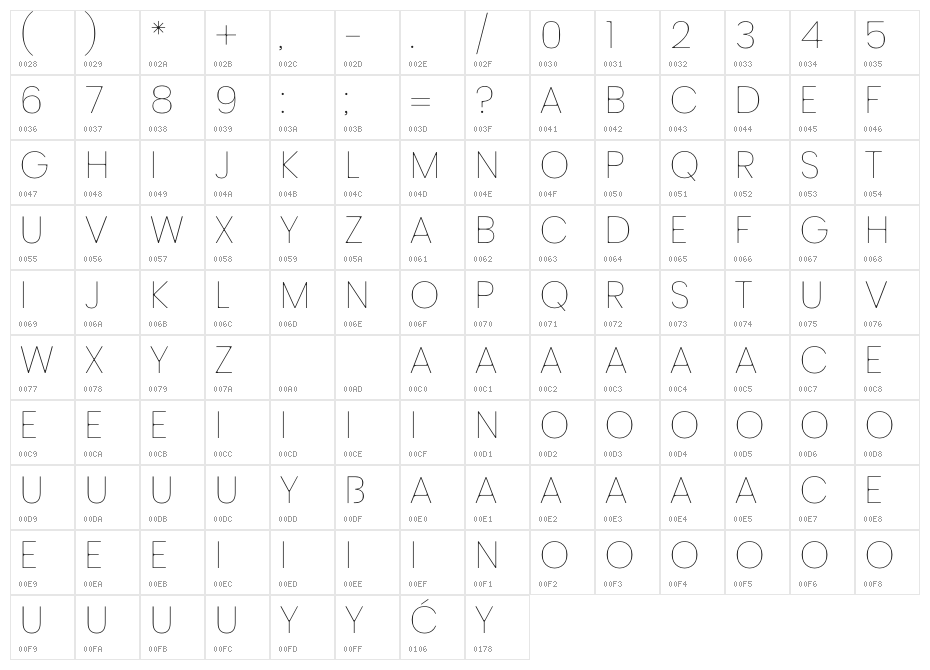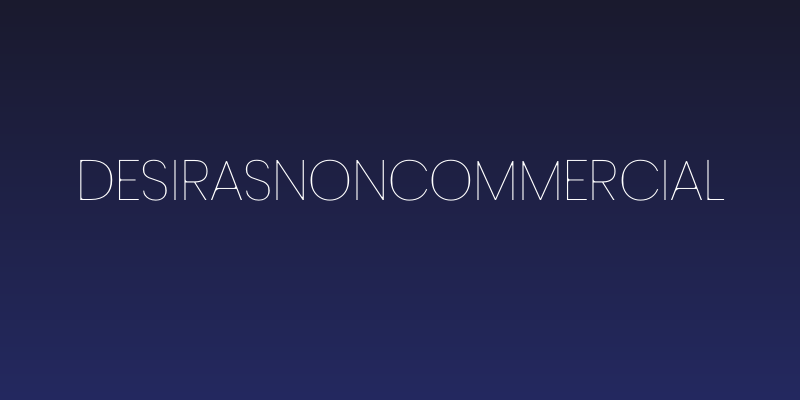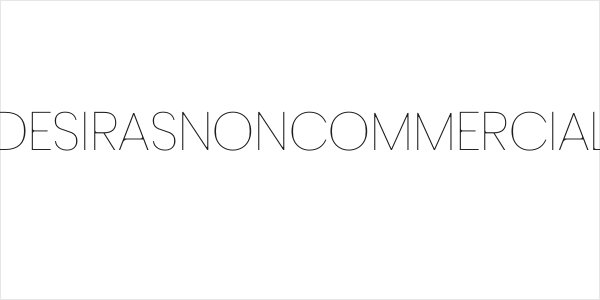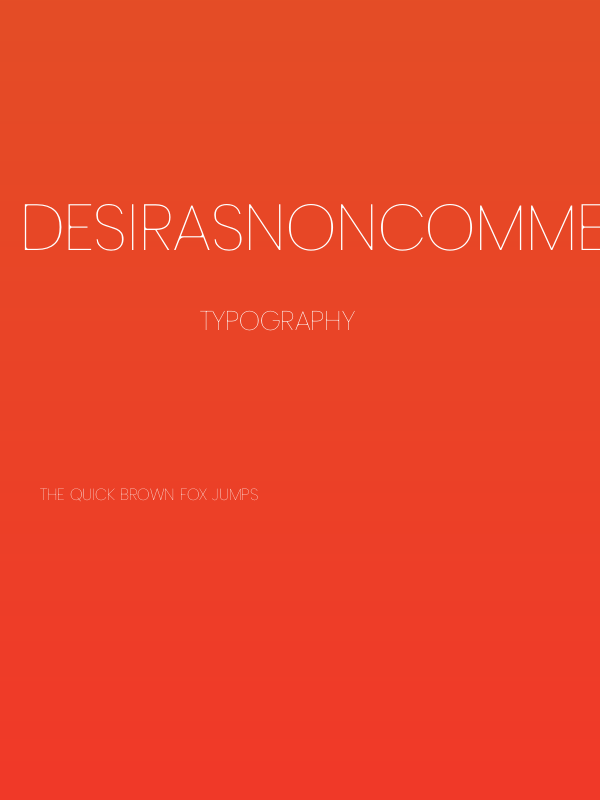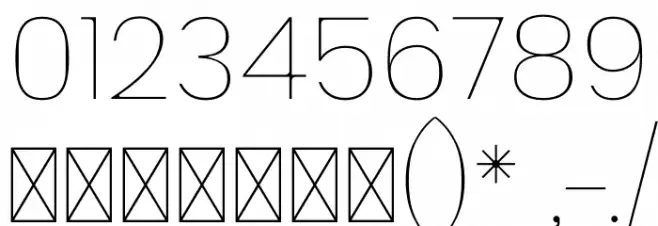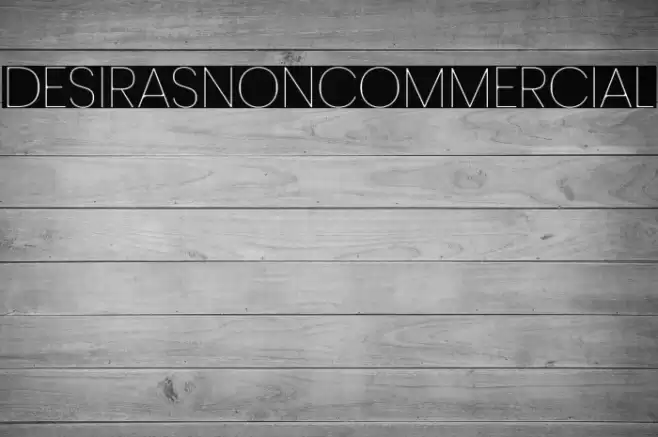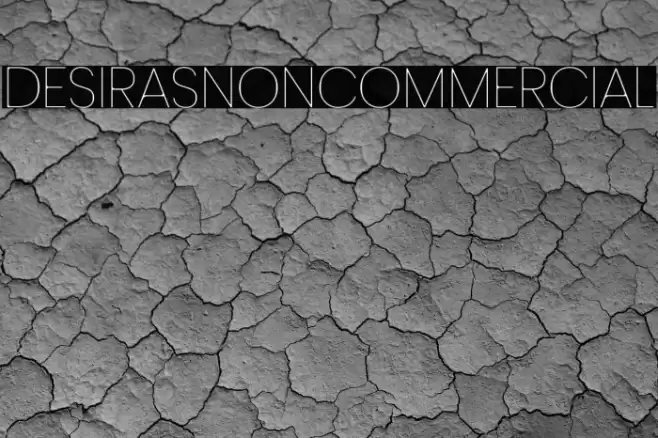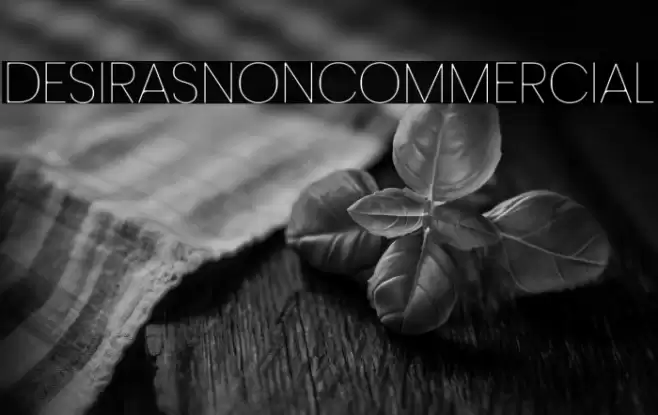
DesirasNonCommercial Font
DesirasNonCommercial Description
This font features a clean and minimalist design with thin, uniform lines that create a sense of elegance and modernity. The characters are evenly spaced, contributing to a balanced and harmonious appearance. The uppercase and lowercase letters maintain a consistent height, enhancing readability. The numerals are straightforward and align well with the overall aesthetic. Special characters are included, though some appear as placeholders, indicating potential for customization or expansion. This font is ideal for projects that require a sleek and contemporary look.
| Proposed Projects | Ideal for modern branding, minimalist posters, sleek website headers, and contemporary product packaging. |